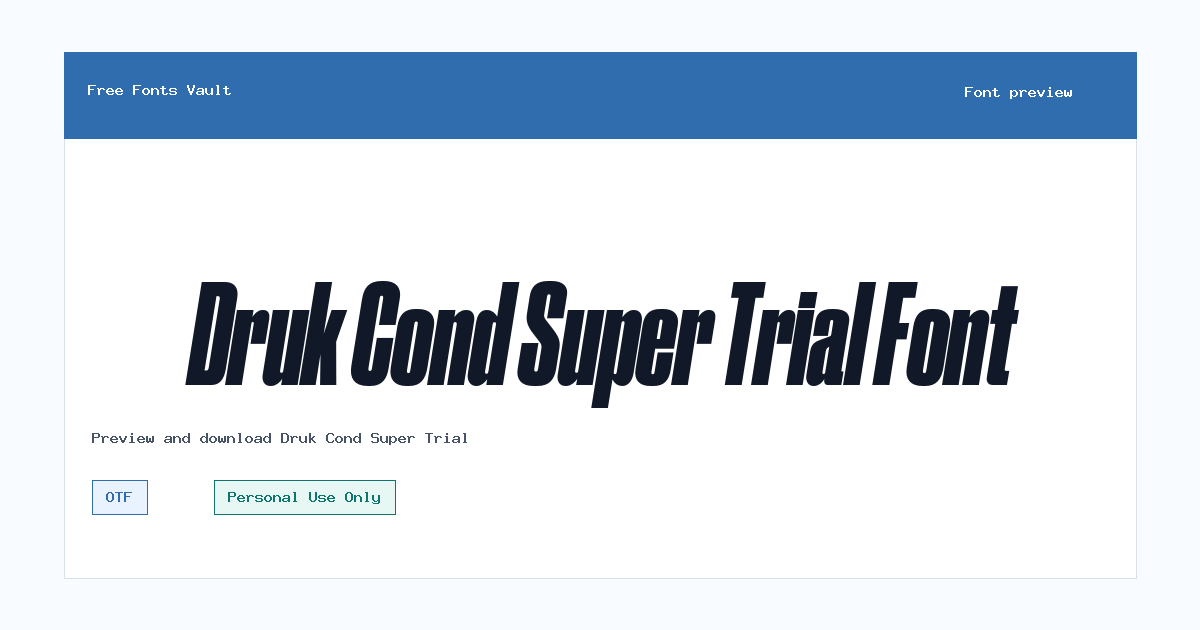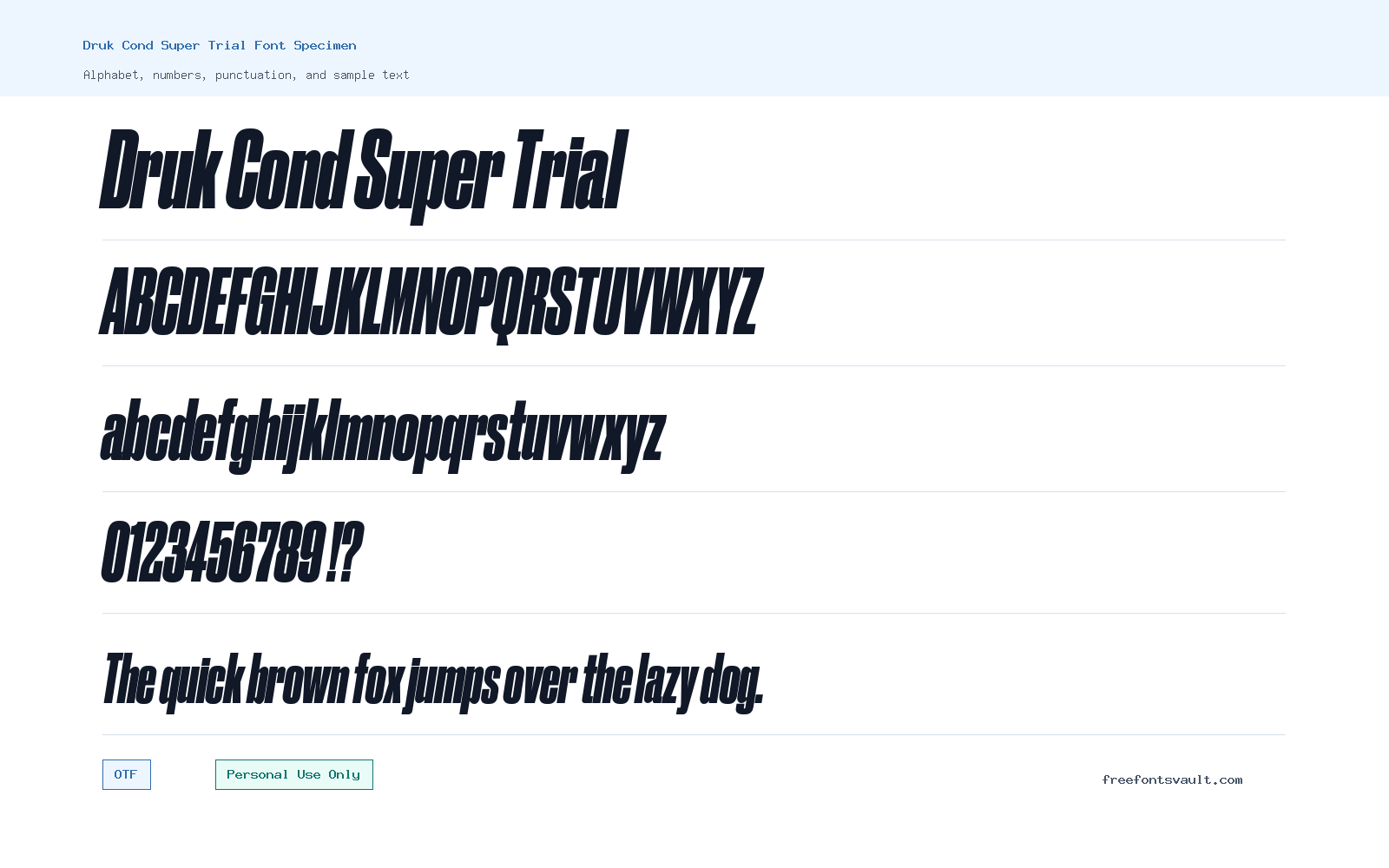
Druk Cond Super Trial
Druk Cond Super Trial Font
Druk Cond Super Trial is a narrow, forceful display font suited to short text where height and impact matter more than long-form reading.
About Druk Cond Super Trial
Druk Cond Super Trial comes as an OTF font file named Druk Condensed Super Italic. The style is italic, with a regular weight value in the file data, and the family name points to a condensed display cut. That makes it a better fit for headlines, posters, editorial titles, banners, and compact wordmarks than for paragraphs or small interface text.
• Condensed italic display style for compact, high-impact text
• Best used in short settings rather than long reading blocks
• Works well when paired with a clean, readable text font
• Poster headlines
• Editorial titles
• Sports-style graphics
• Fashion or culture layouts
• Large banner text
• Short display typography
The designer is listed as Berton Hasebe, and the foundry is listed as Commercial Type, Inc.
What style is included?
The included variant is an italic style. The file name identifies it as Condensed Super Italic.
What is this font best used for?
Use it for short, large display text such as headlines, posters, banners, and title graphics. It is not a good first choice for long paragraphs.